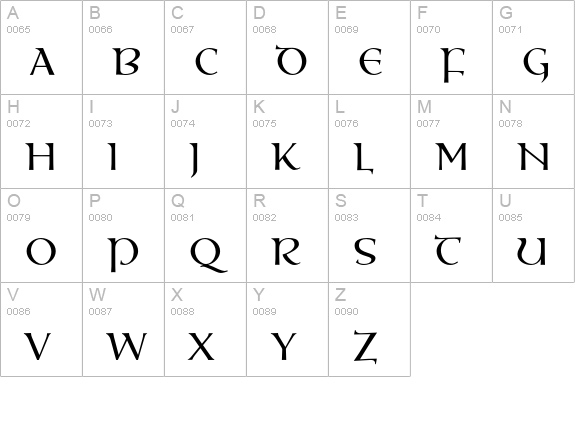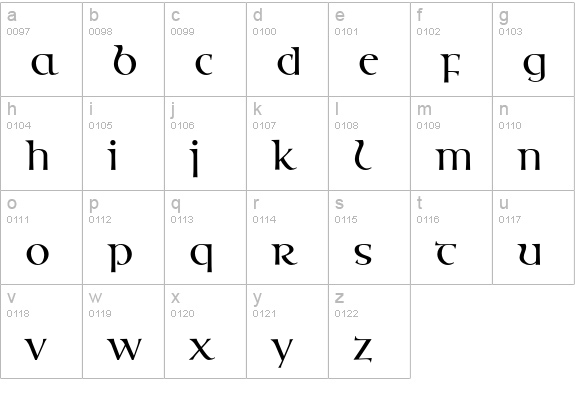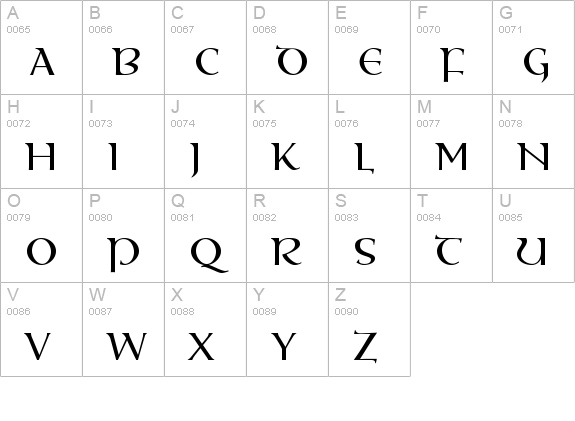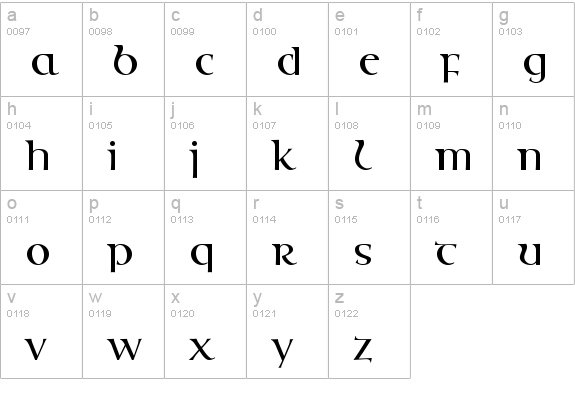
OssianEF-Regular is the standard, neutral variant in the OssianEF typeface family \xE2\x80\x94 well suited to general body text, paragraphs, and standard typographic work.
OssianEF-Regular font is a timeless and versatile typeface that exudes elegance and sophistication. Its classic yet modern design makes it suitable for a wide range of projects, from branding to editorial design. With its clean lines and balanced proportions, OssianEF-Regular font brings a touch of refinement to any design. What sets OssianEF-Regular font apart is that it is not only beautifully crafted but also completely free to download. Yes, you read that right – this exquisite font is freely available at FontsMarket.com for you to use in your creative endeavors. So go ahead and elevate your designs with OssianEF-Regular font, without having to spend a penny. Download it now and let your creativity soar!